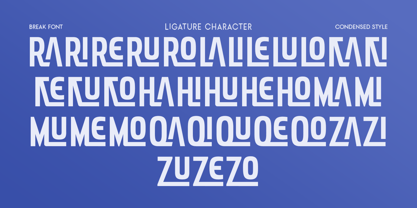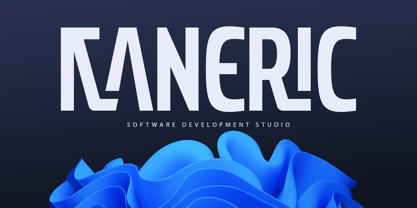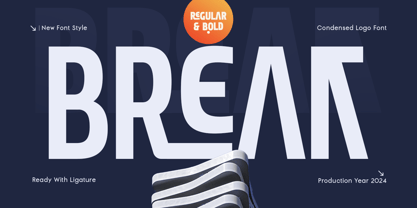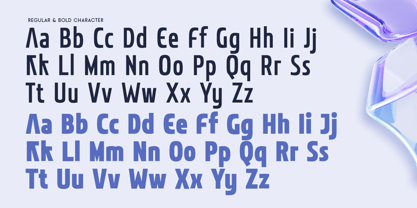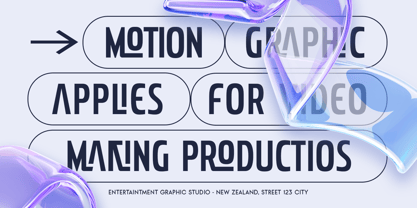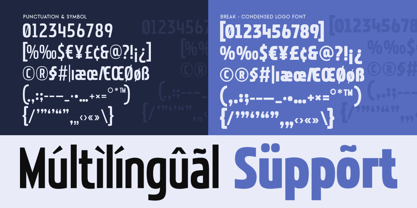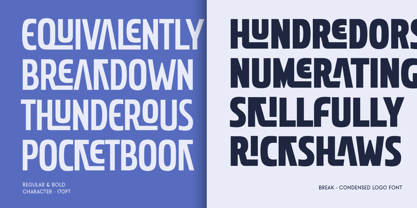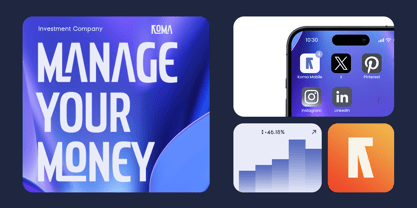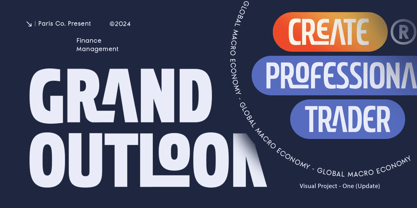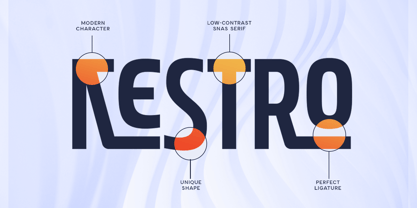
BREAK is a condensed logo font designed to give your branding and headlines a bold, modern presence. Ideal for logos, posters, packaging, and digital projects, it combines compact letterforms with strong readability.
With clean lines and a professional, contemporary style, BREAK ensures your designs stand out in both print and digital applications. It’s perfect for designers seeking impactful condensed typography.
Font Features
Bold and condensed character set
Perfect for branding, logos, and headlines
Uppercase, lowercase, numerals, and punctuation included
OpenType features for extra versatility
Multilingual support
Make a bold impression with BREAK – the ultimate condensed logo font for modern branding and headlines! ✨